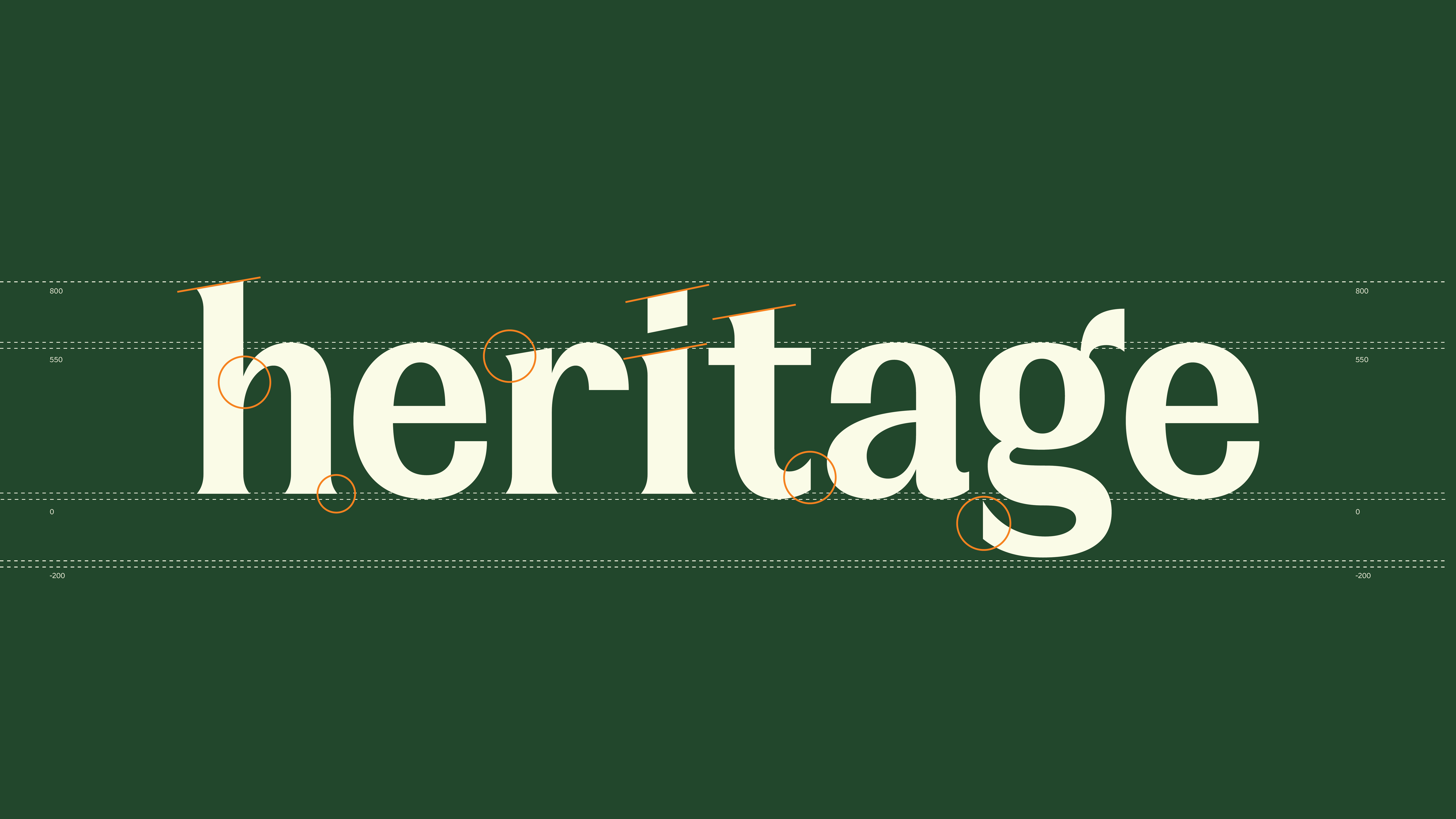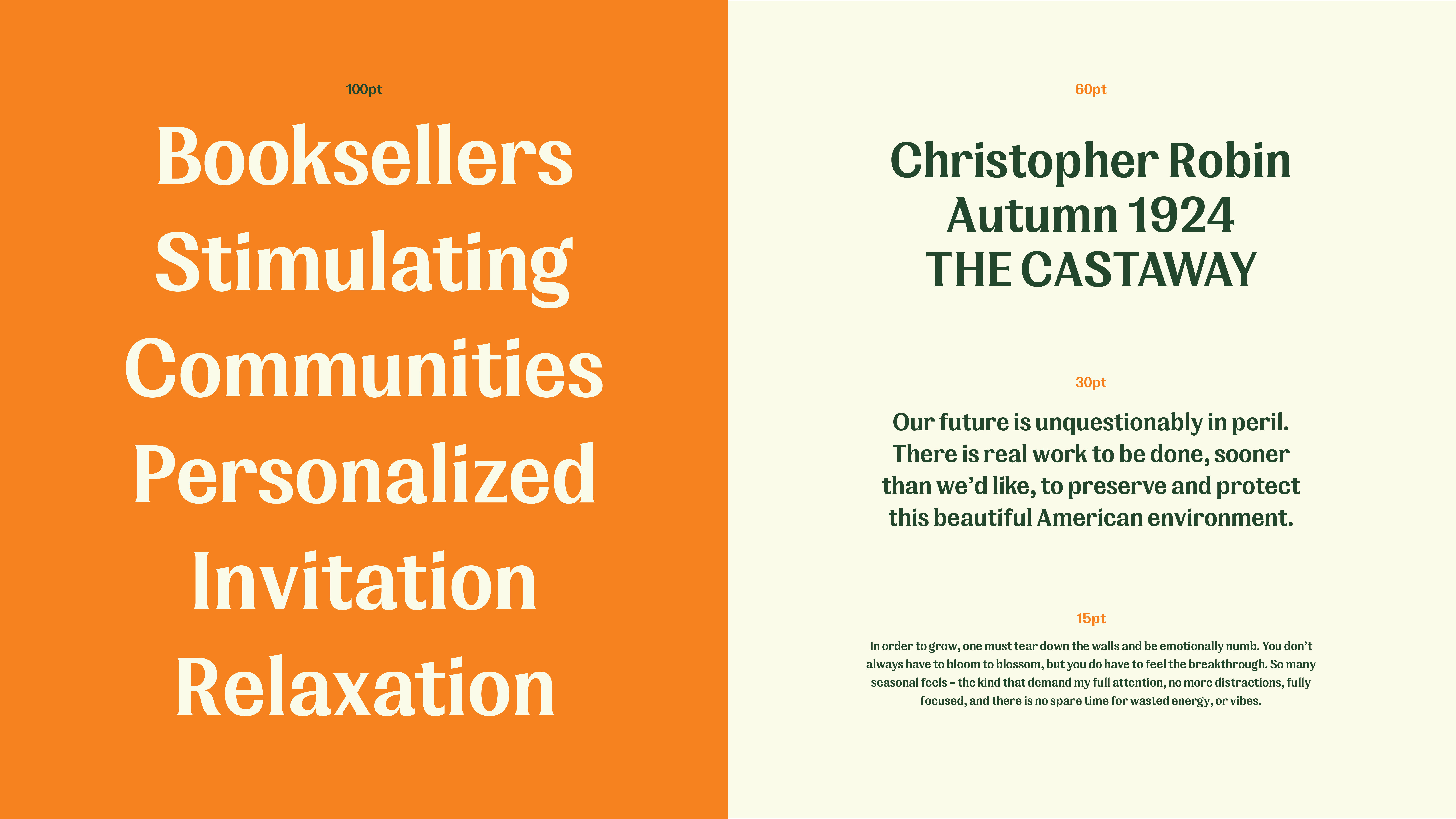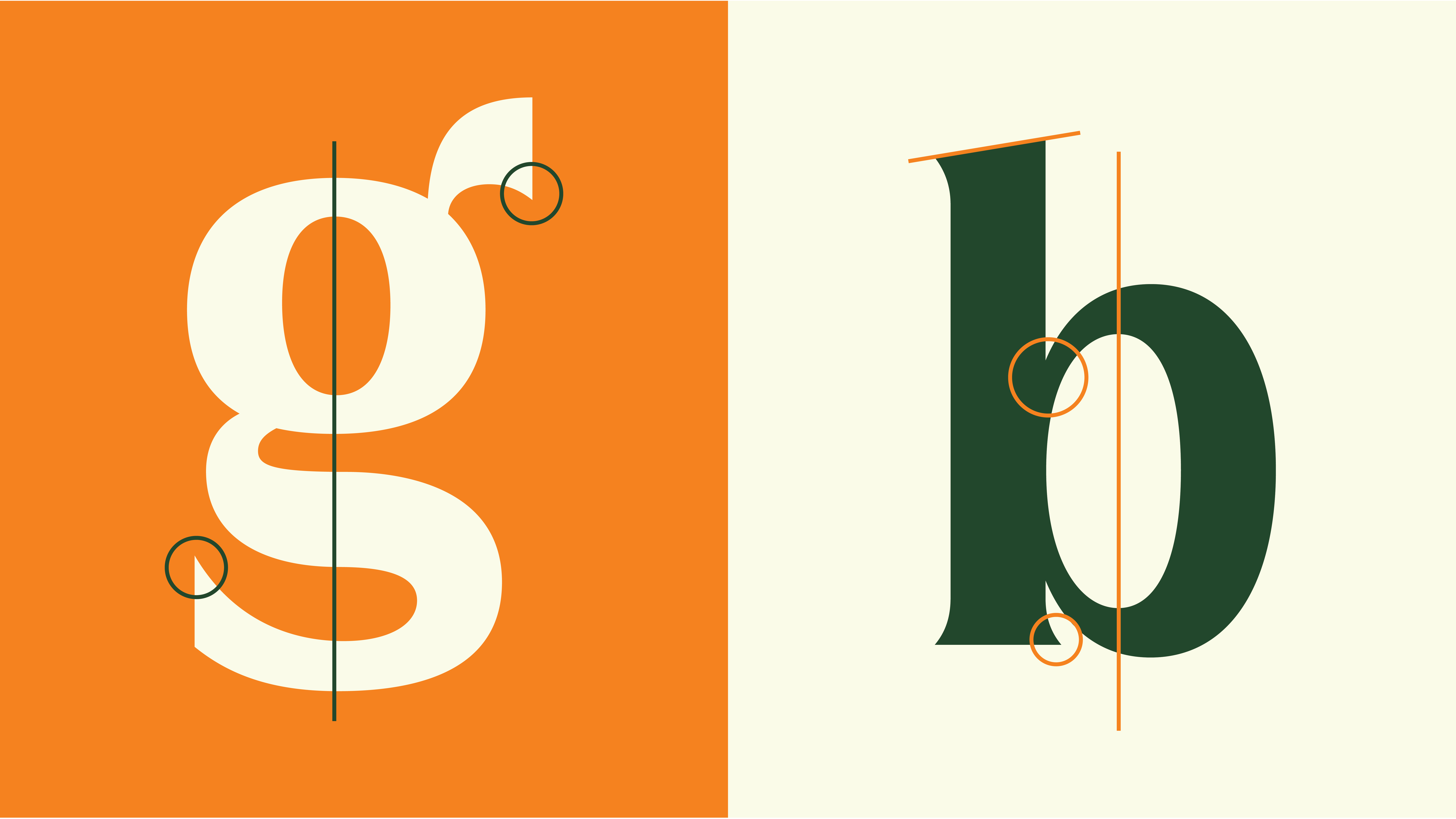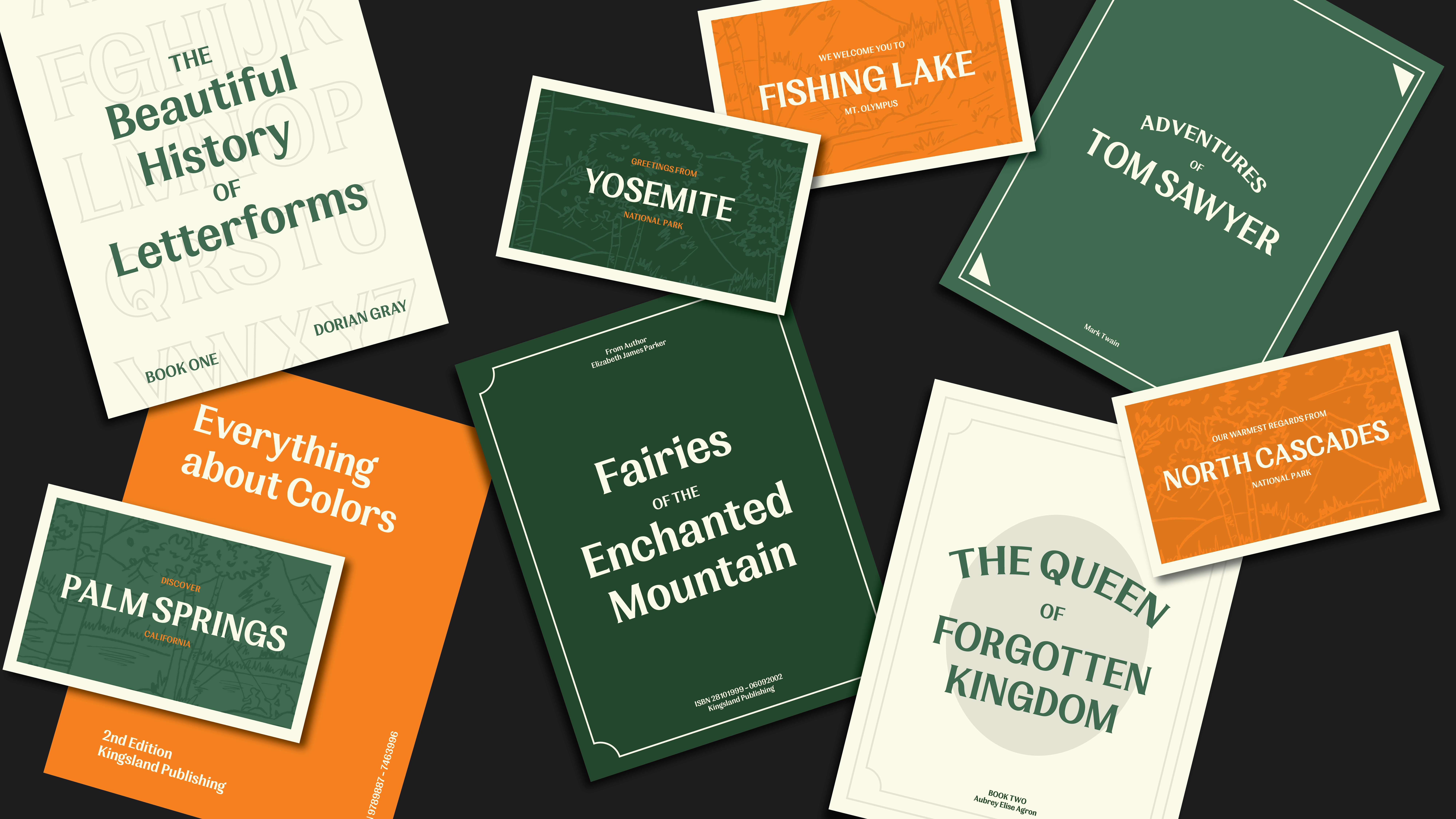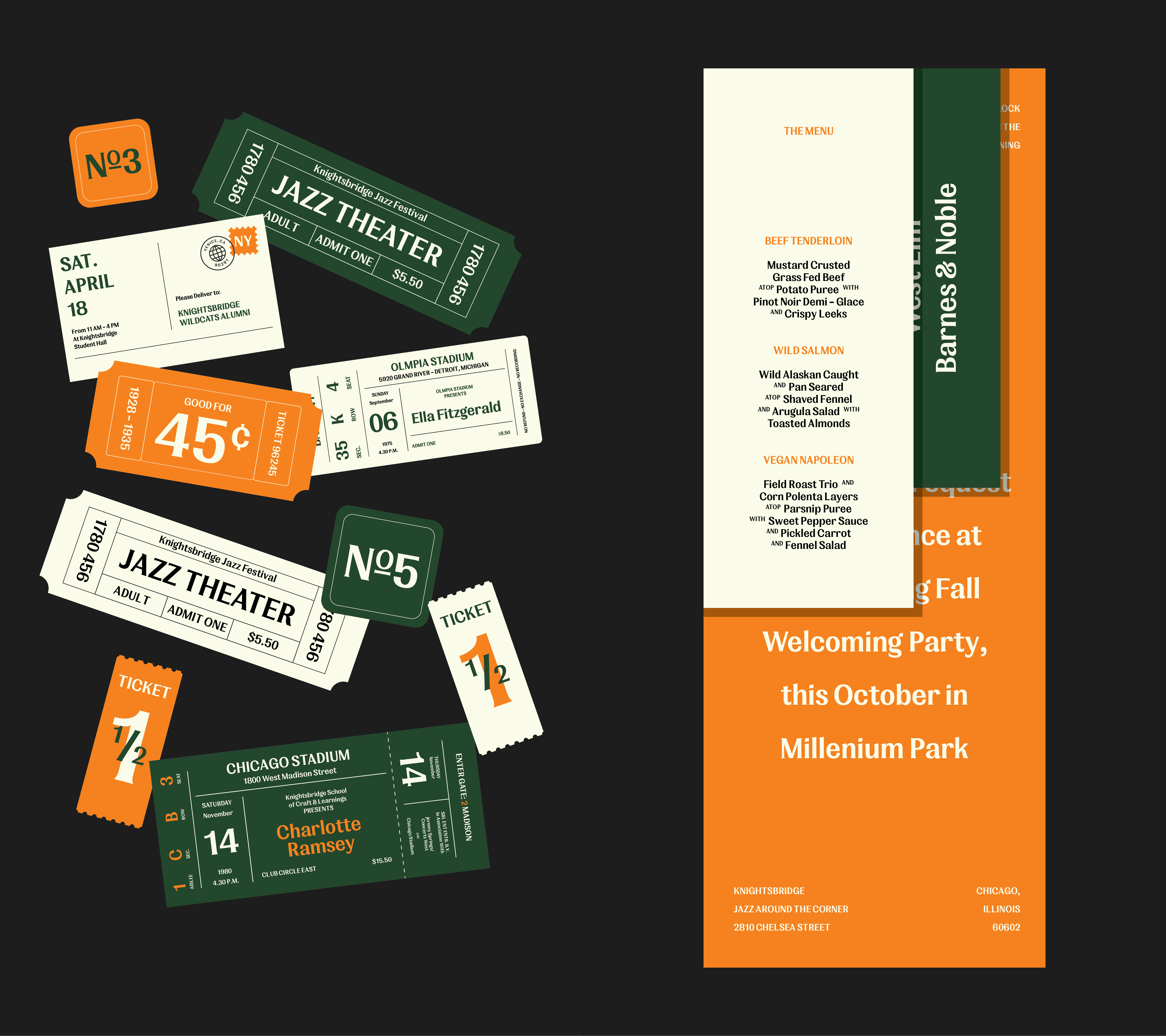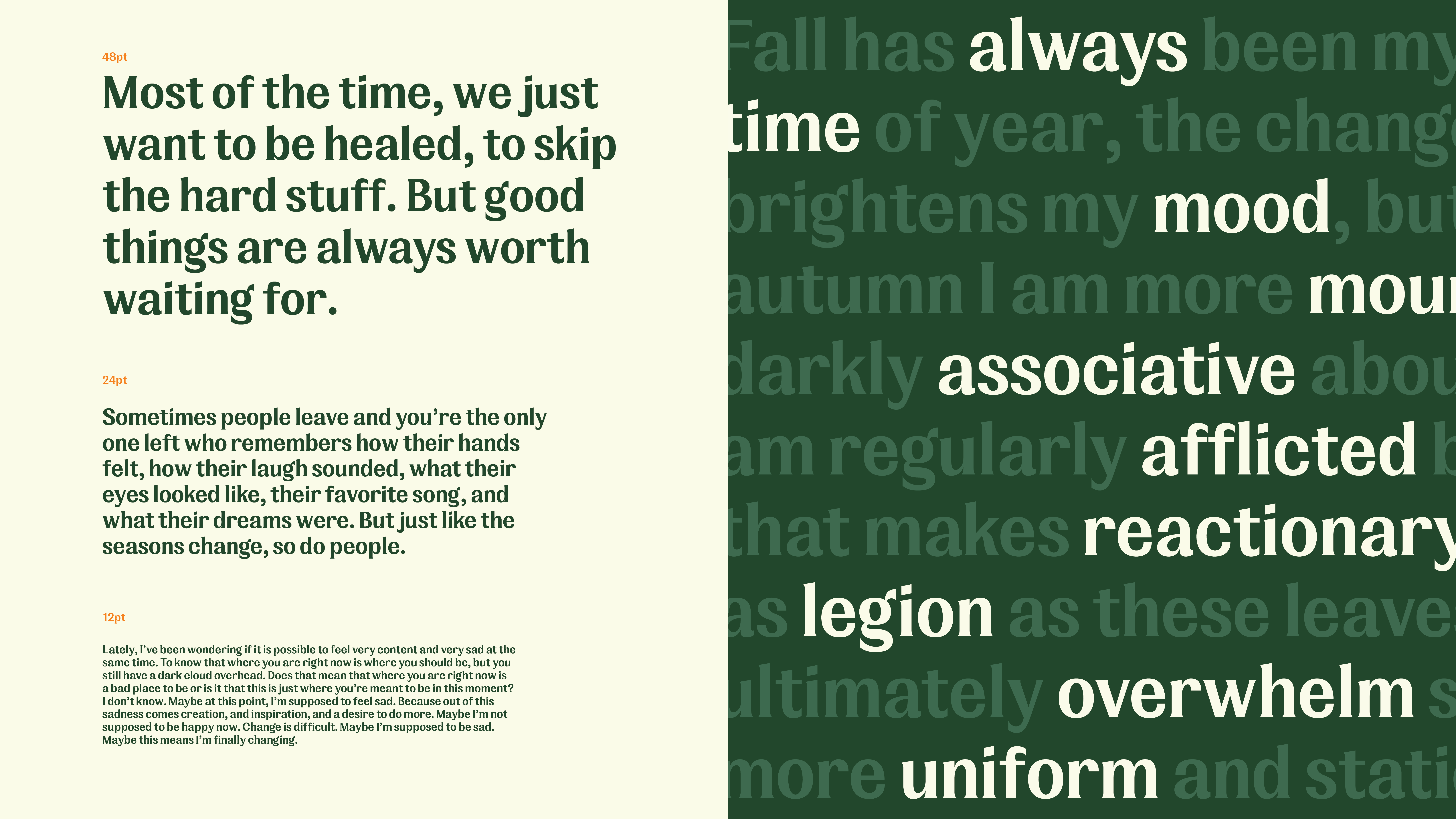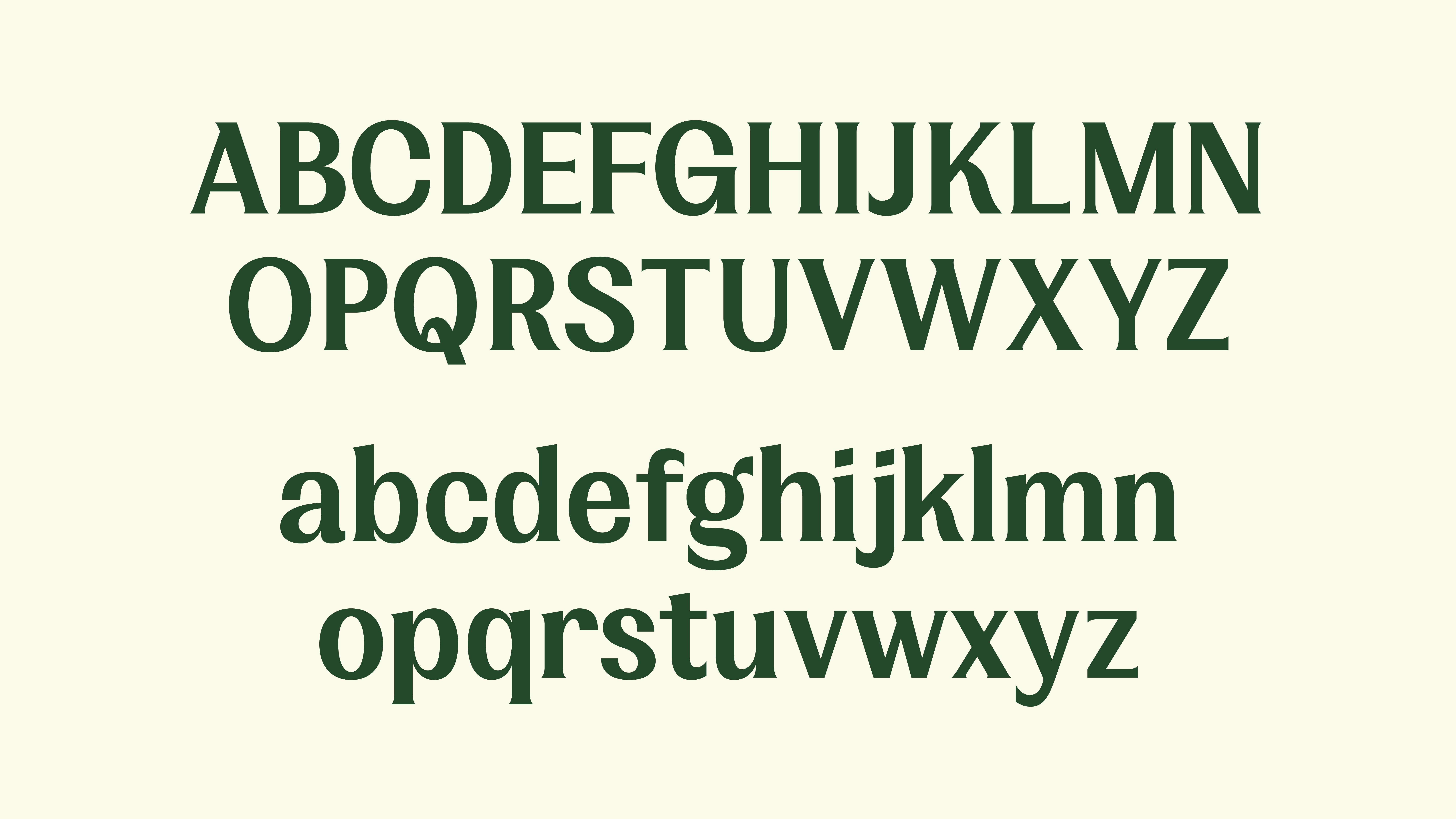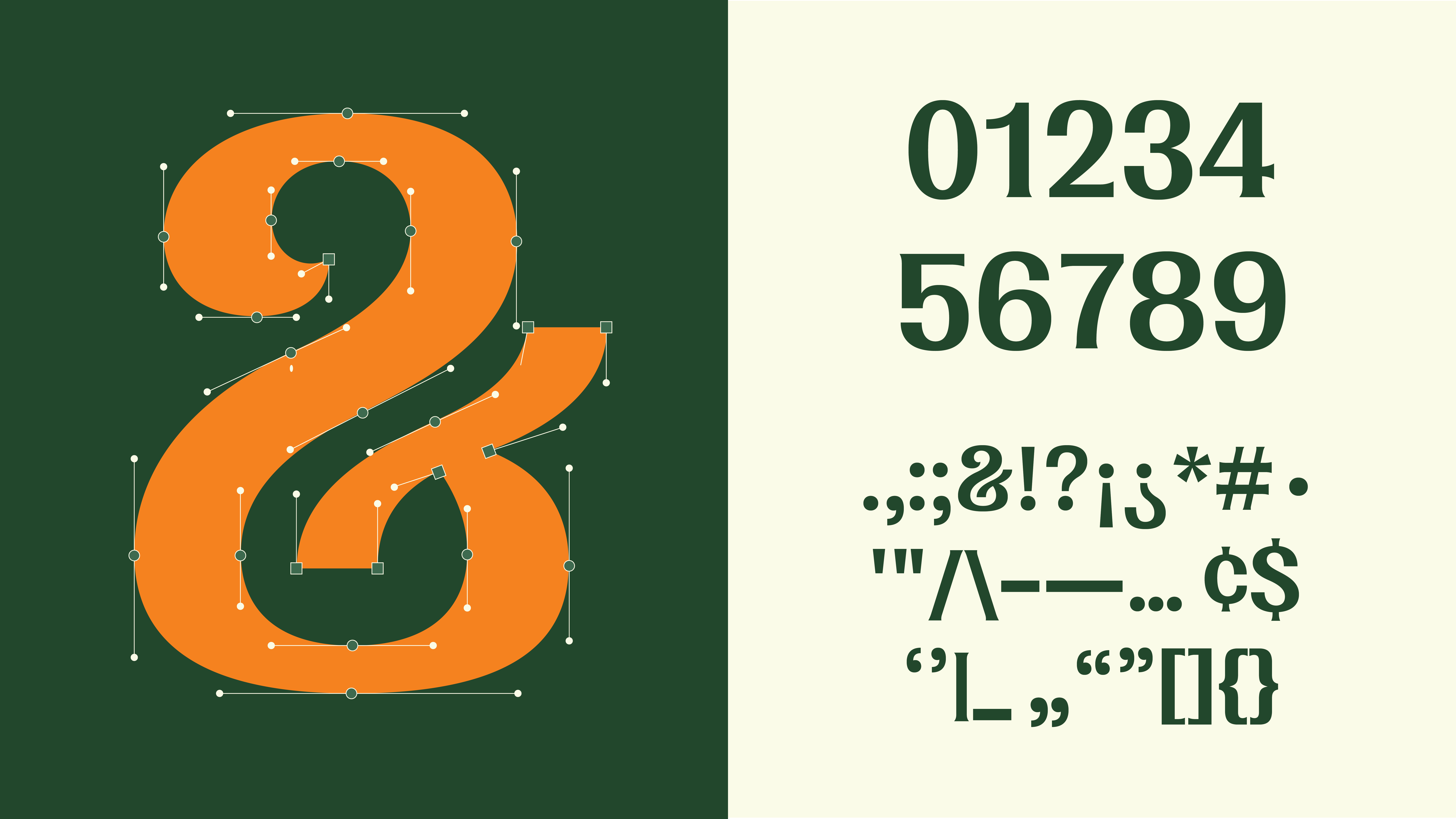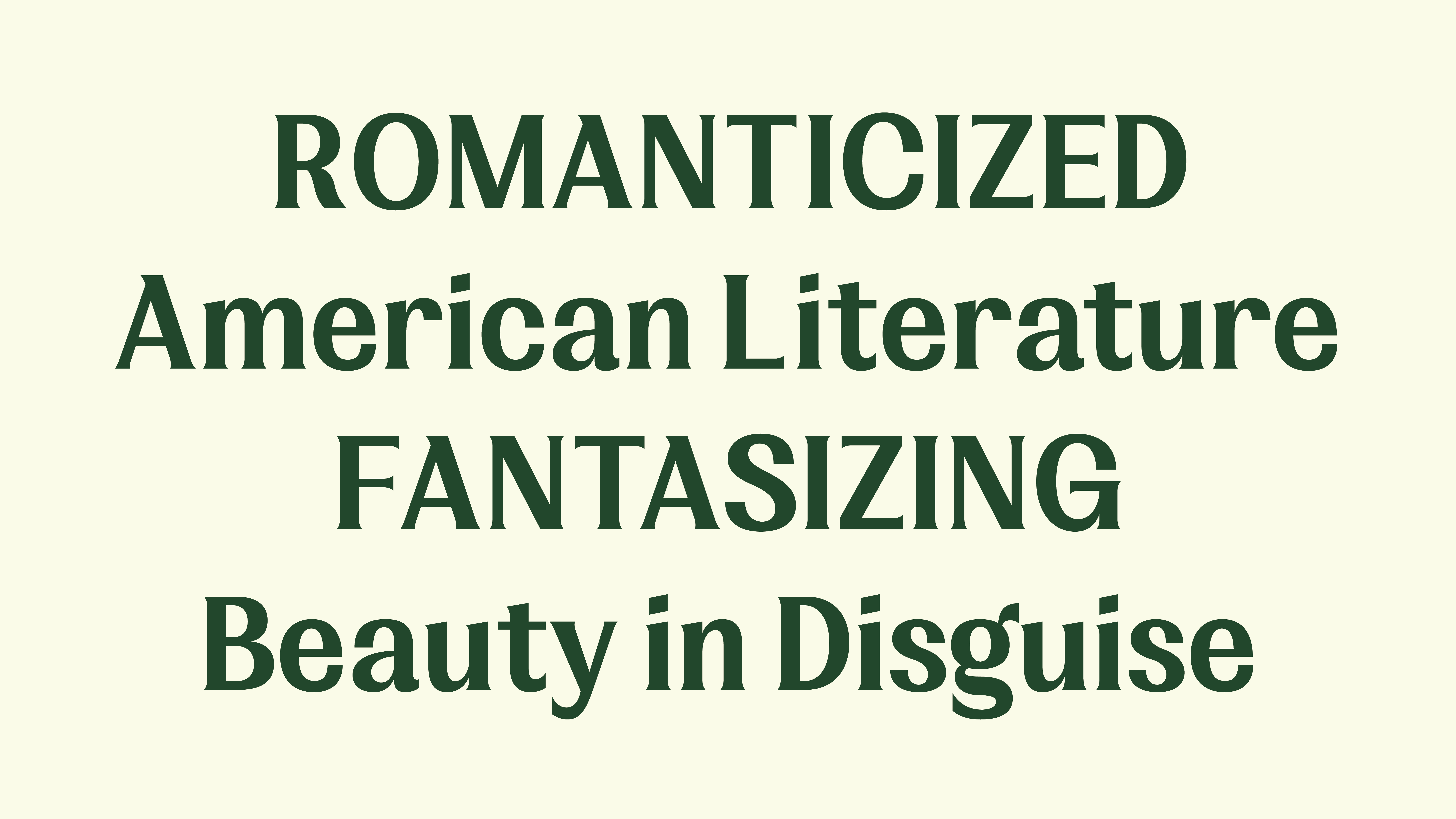
Atheneum Grotesque Typeface
Atheneum Grotesque is a semi-condensed typeface that conveys delicate elegance with confidence. It's inspired by old book covers and ticket aesthetics from the 20th century. Its luscious curves, delicate flares, and high contrast enhance any design at 12 point size or higher. This typeface embodies intangible beauty through tension, balance, and unconventional shapes.